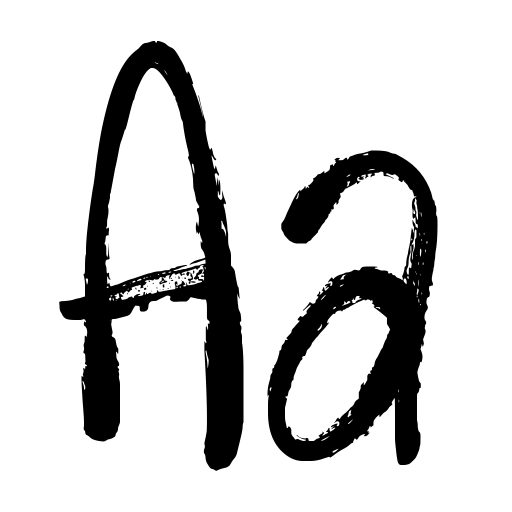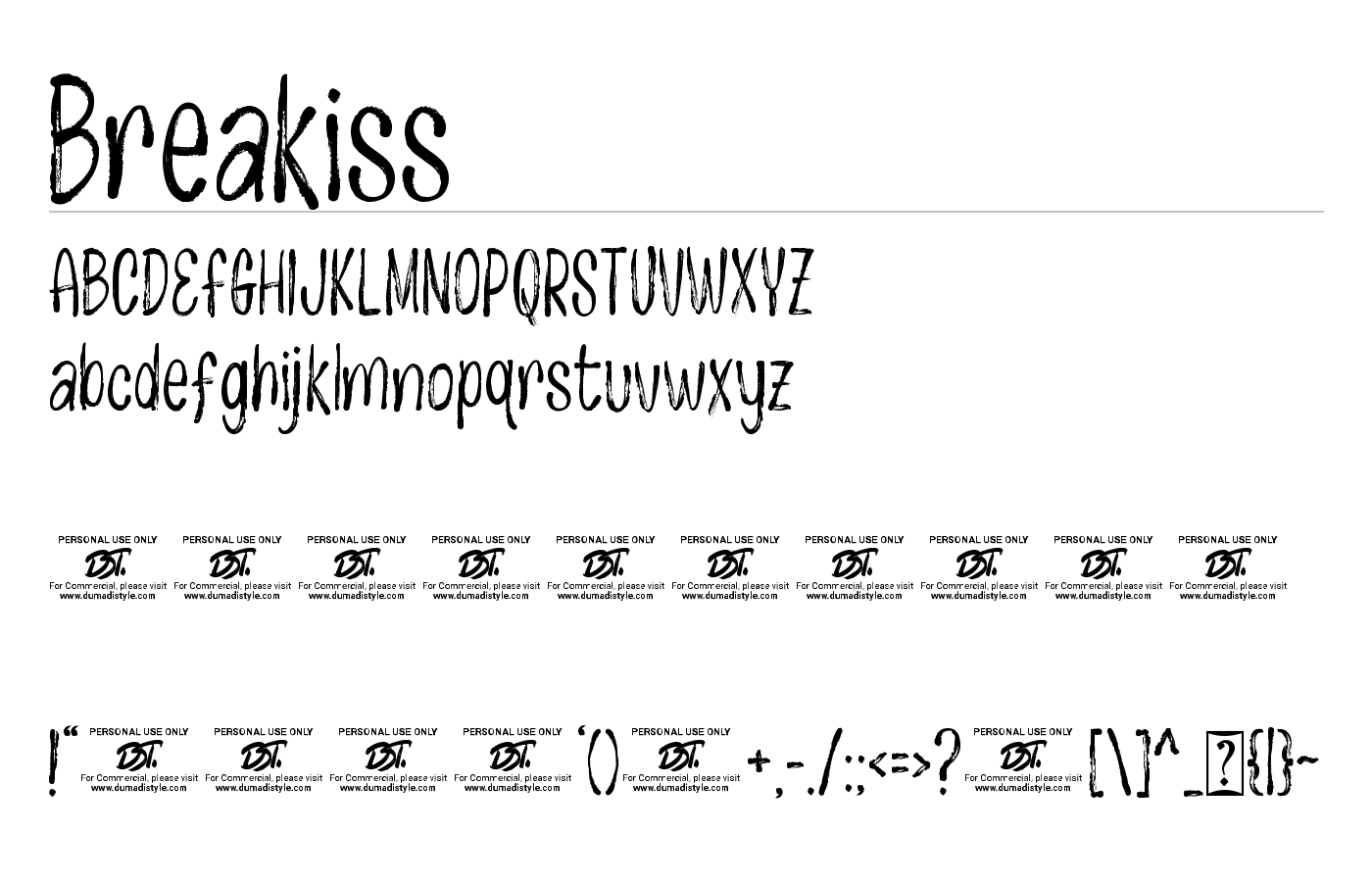
Breakiss is a quirky and playful handwritten sans serif font characterized by uneven strokes and a textured, slightly rough appearance that evokes a casual, artistic vibe. Its tall, narrow letterforms feature unique irregularities, giving it a spontaneous and informal feel perfect for creative, youthful designs, making it ideal for posters, branding, and any project seeking a hand-crafted, expressive touch.
Breakiss Font
About Breakiss Font
| Font family | Breakiss Font |
| Designer | Toni Dzulham |